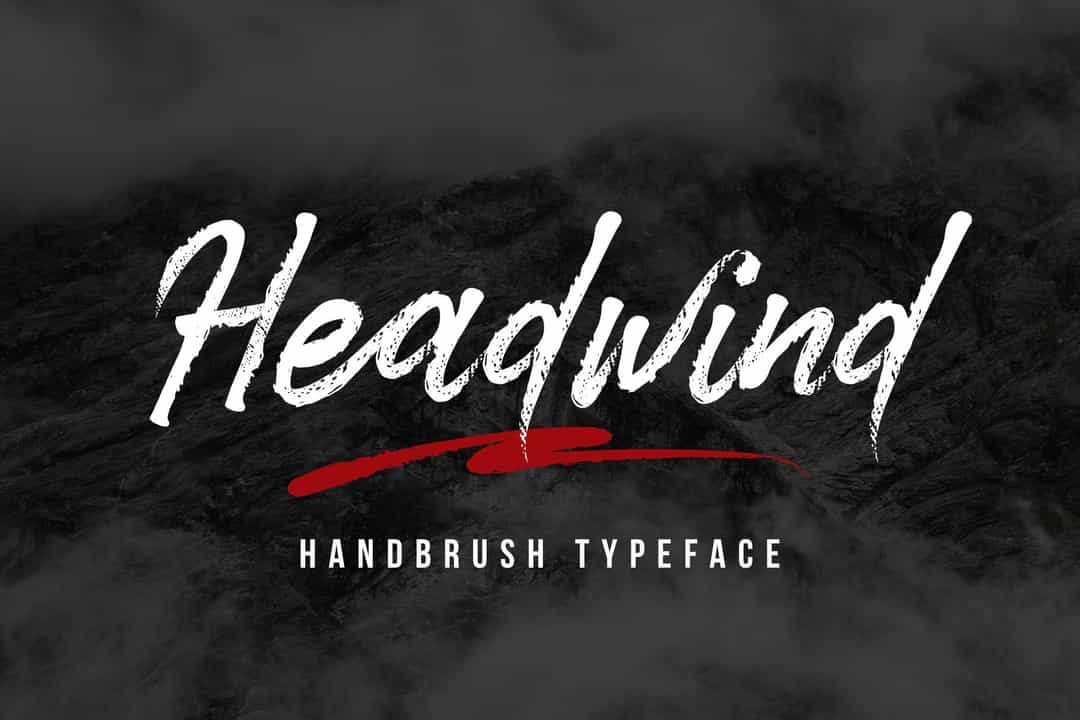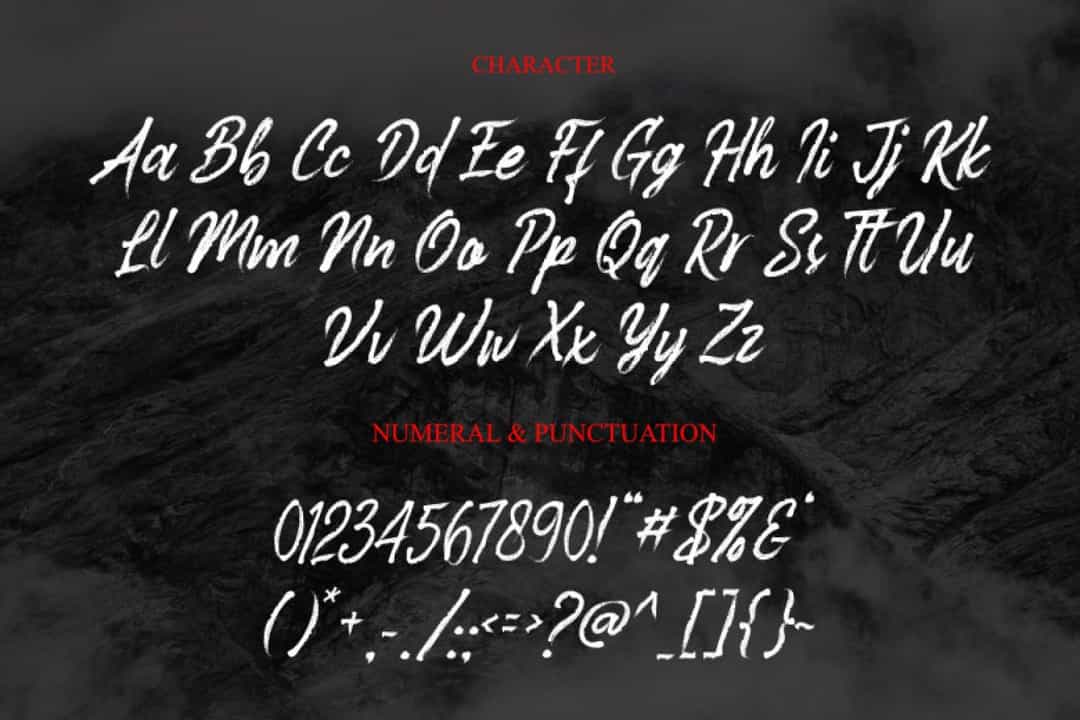
Headwind Handbrush Typeface is an engaging font designed with natural textures crafted using the Brush application, perfect for any design projects involving natural elements. Make this font part of your designs to add visual interest.